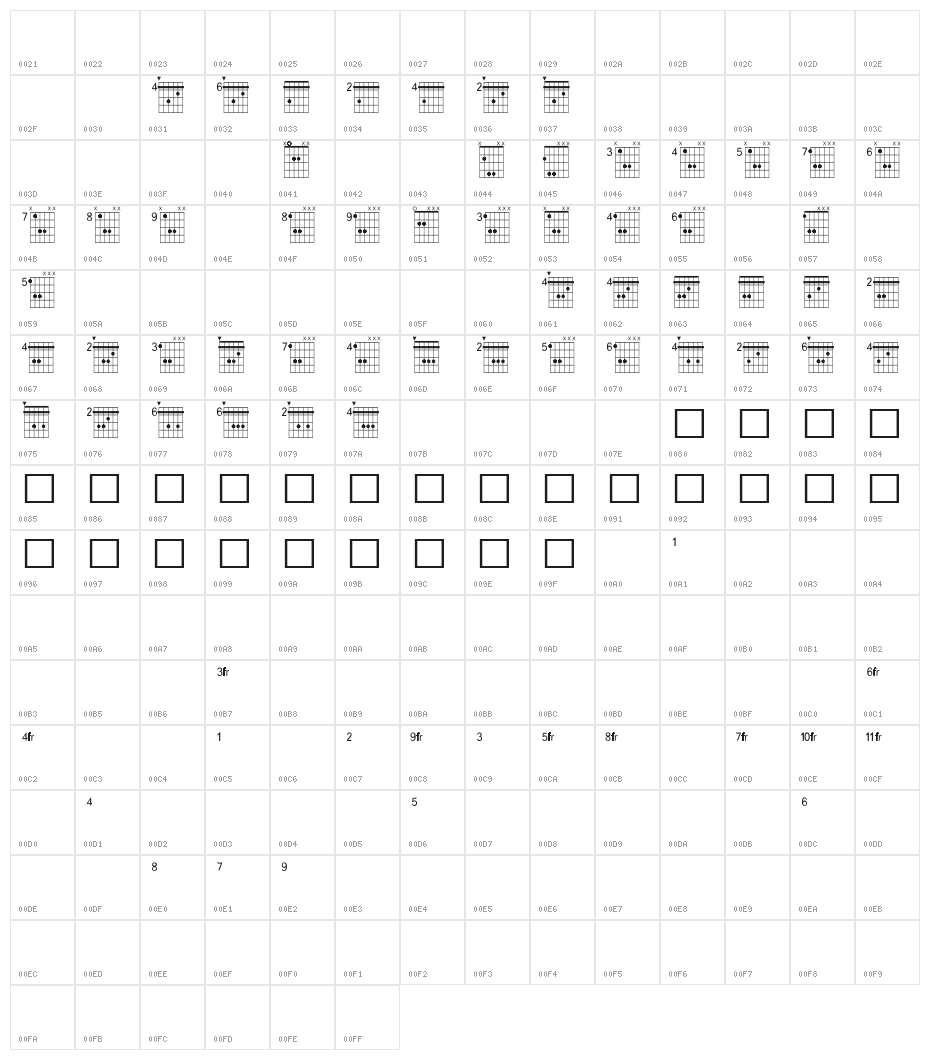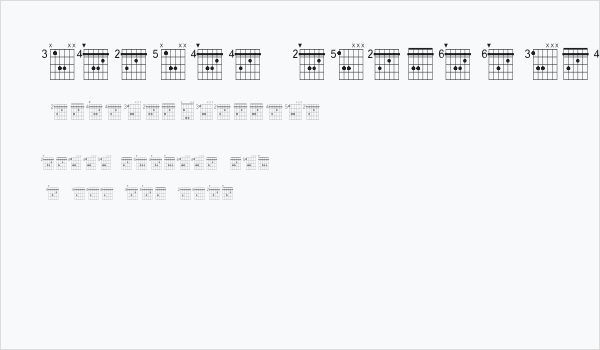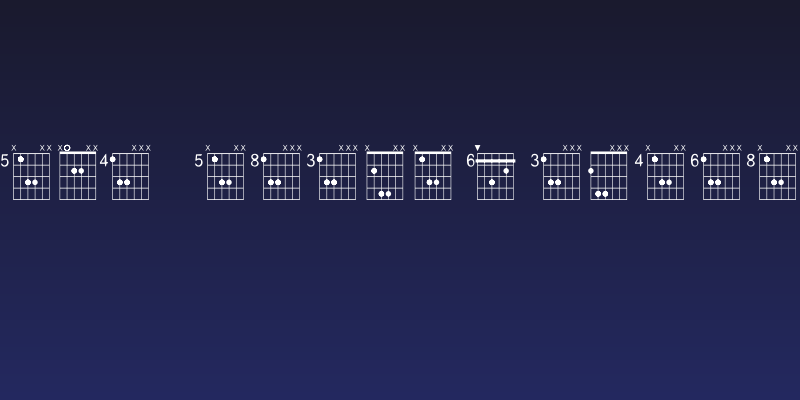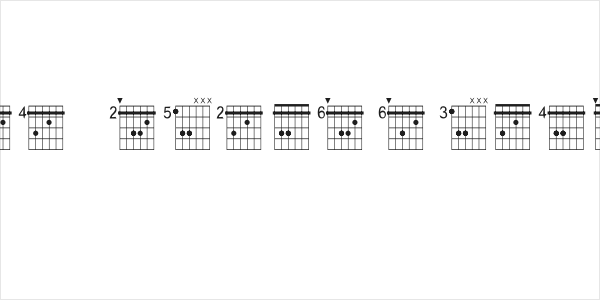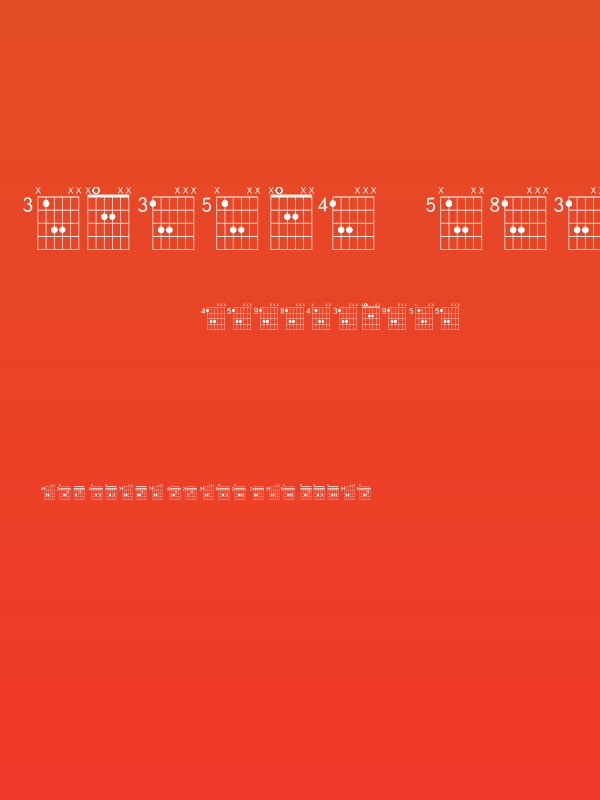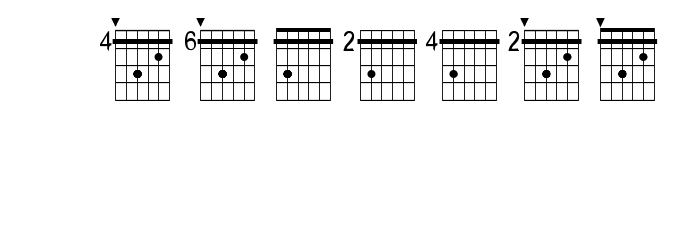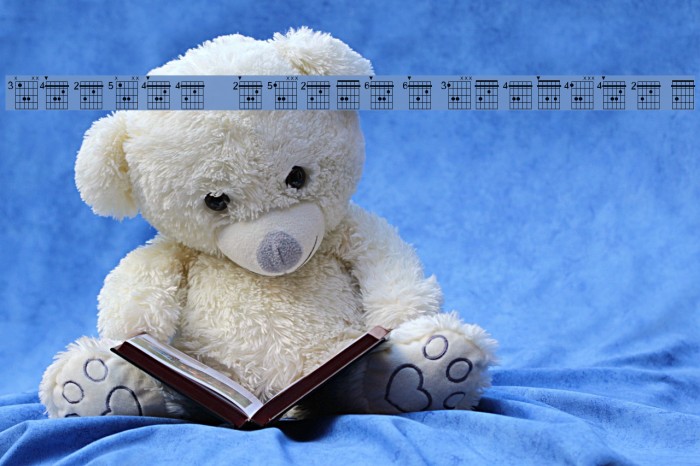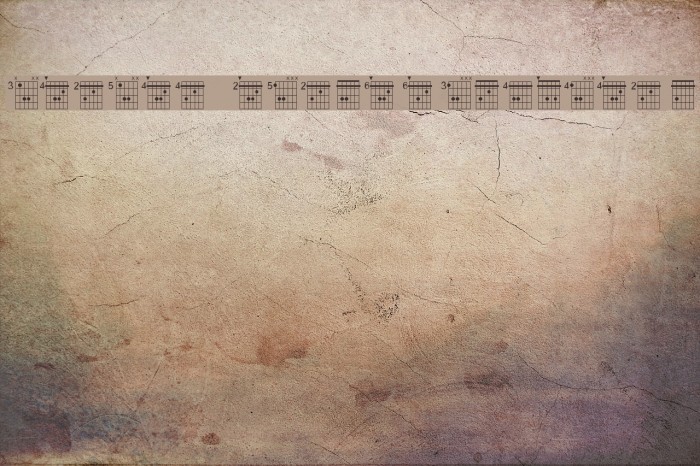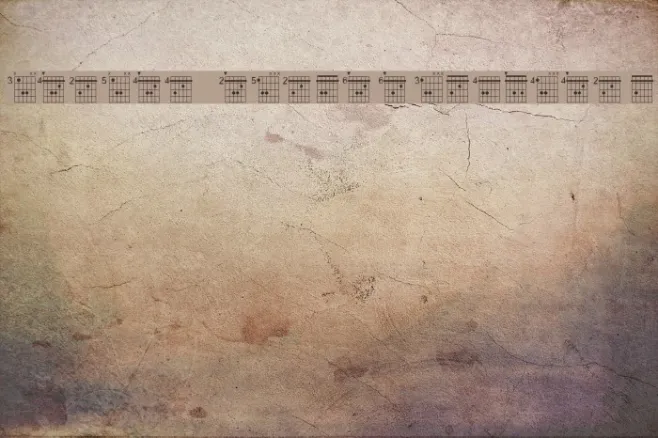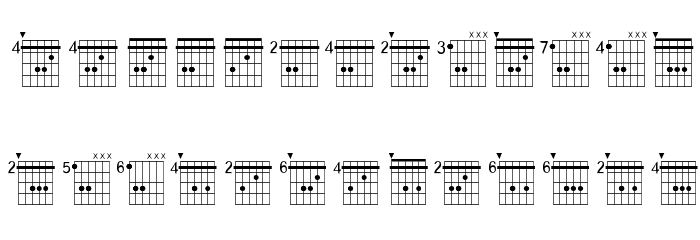
FarHat Chords 2 Regular 3 Font
FarHat Chords 2 Regular 3 Description
A specialized pictorial font displaying guitar chord diagrams, with each character representing a different chord shape on a grid. The diagrams include fret numbers, string indicators, and finger positions, all rendered in a clear, schematic style.
| Overall Style | Functional, schematic, instructional |
| Use Case | Chord charts, music books, instructional graphics |
| Proposed Projects | Music notation software, guitar learning materials, chord chart creation, educational posters. |